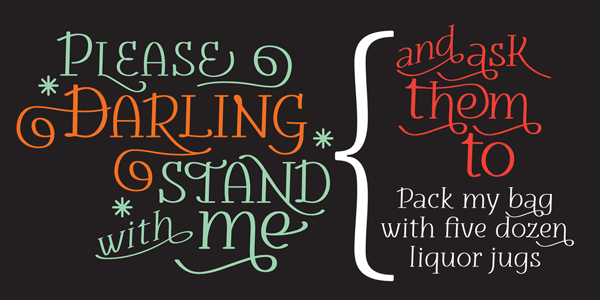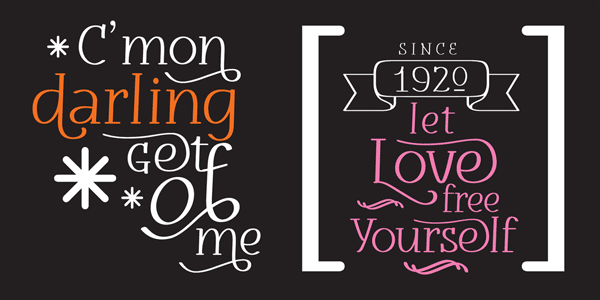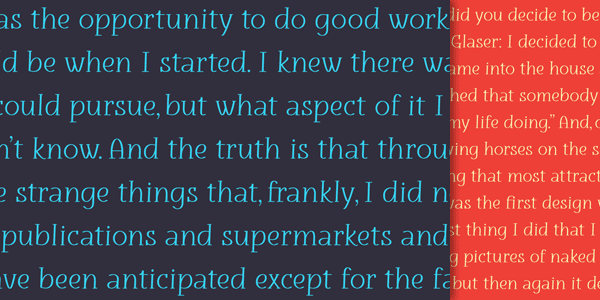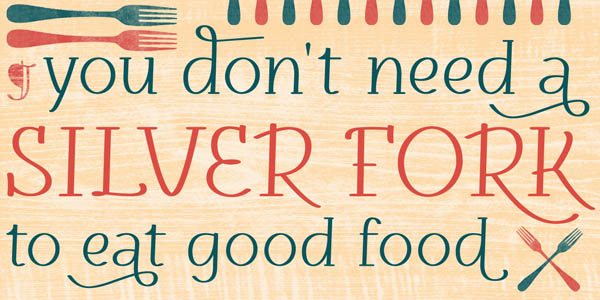
Darling Vintage Typeface.
The Darling font was designed in 2013 by graphic designer Daniel Justi. This vintage display typeface works great for a various range of retro designs, titles, letterings, short texts. It’s also a great font in combination with illustrations for books and magazines. The Darling font includes 738 characters and a wide range of OpenType features, which offer a well variety of title and word compositions. Darling’s vintage typeface has a very warm and friendly appearance.